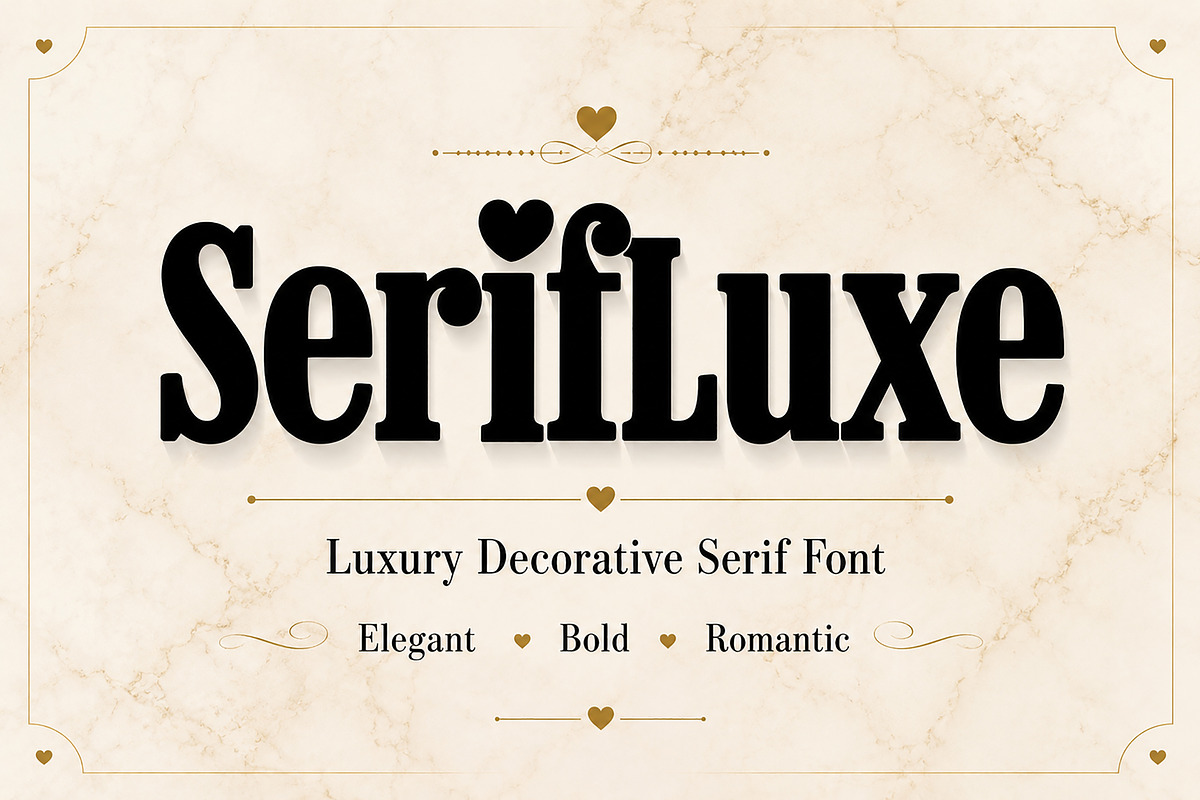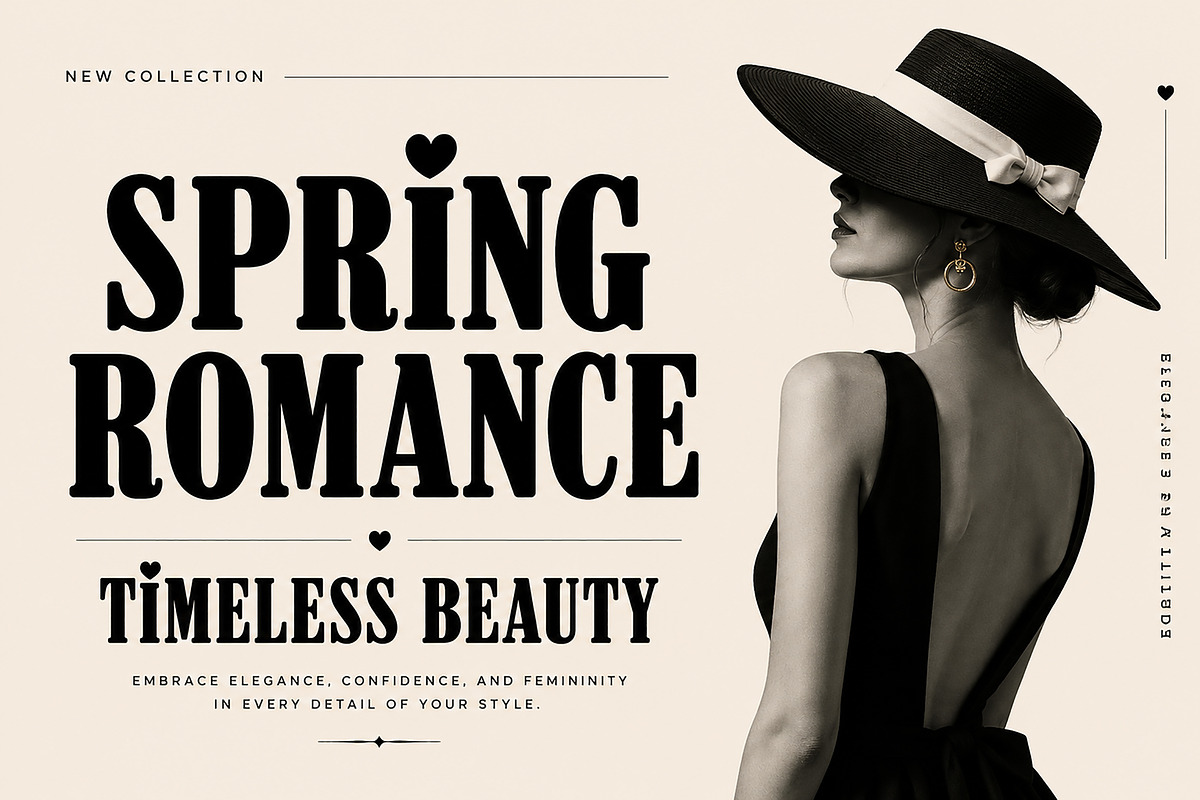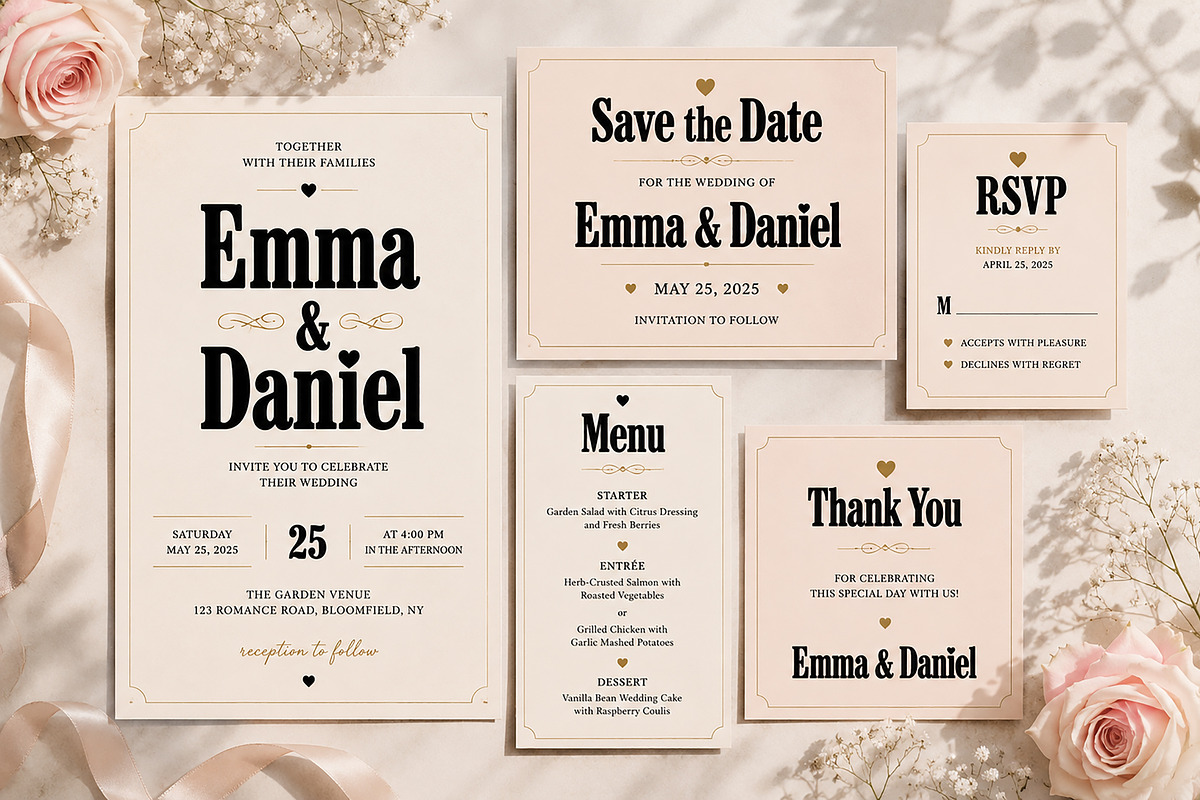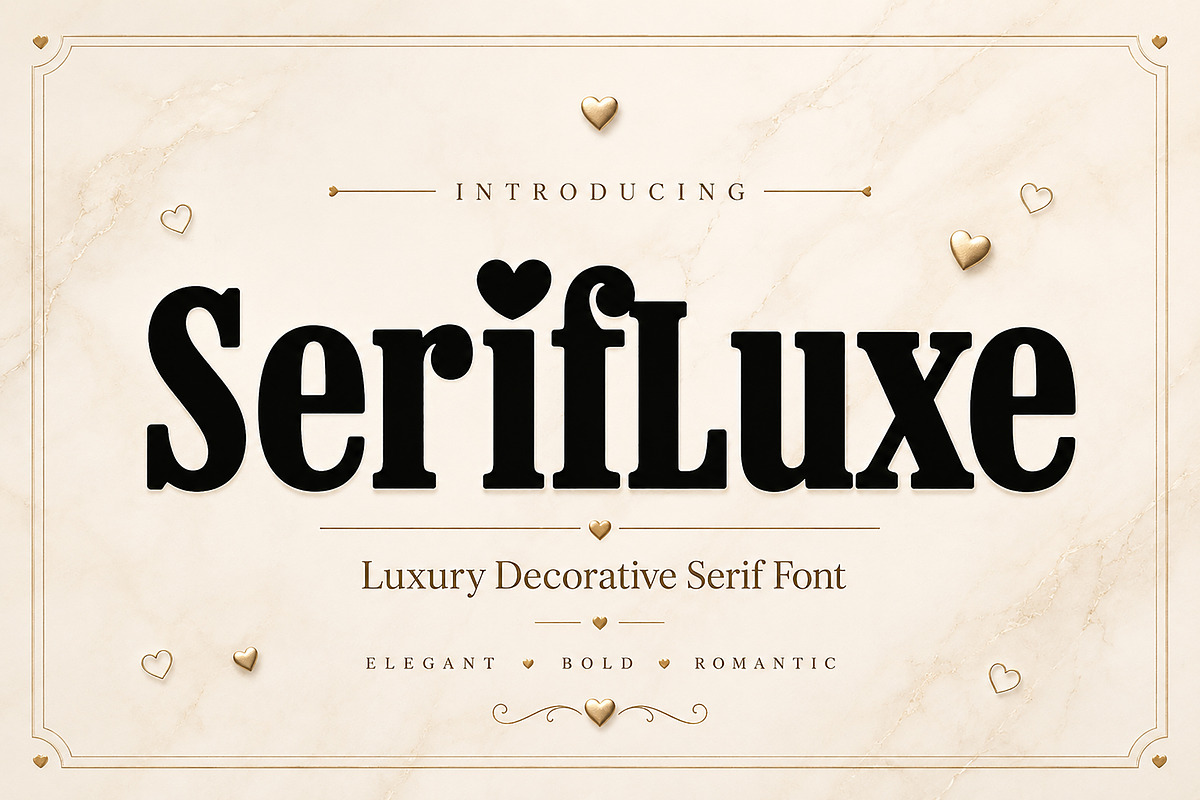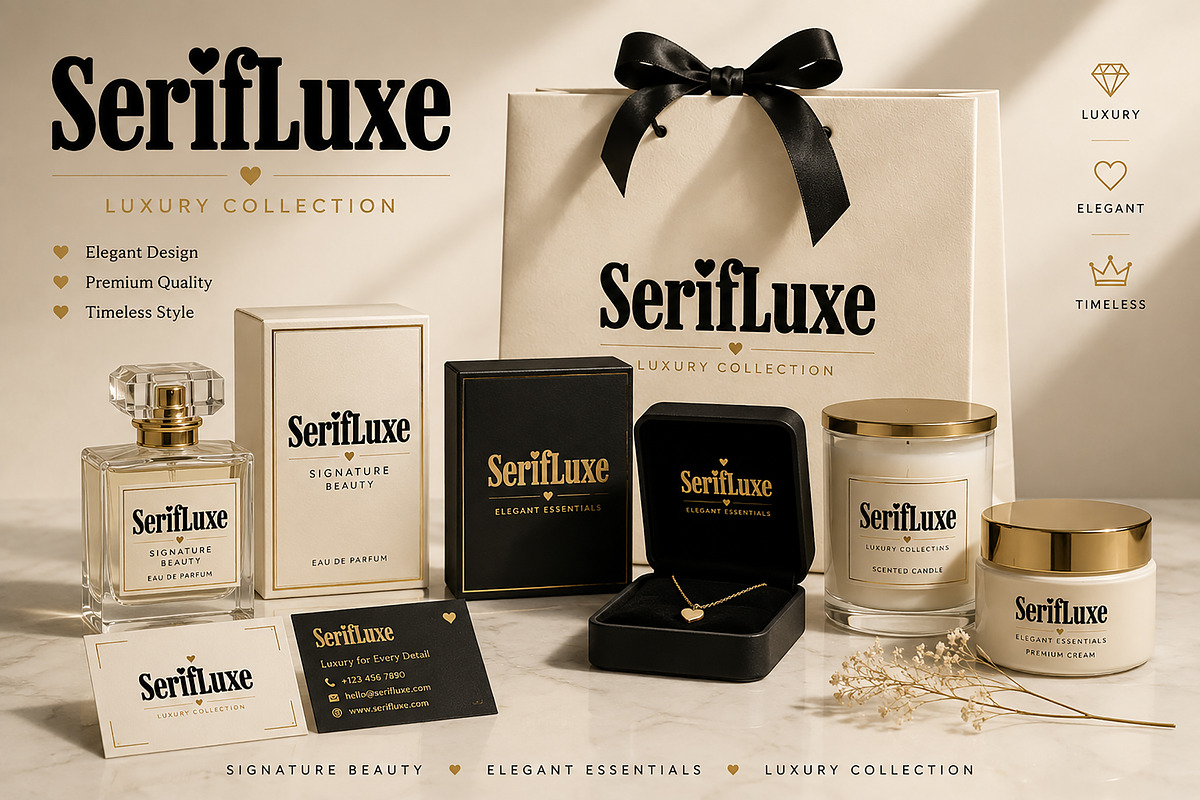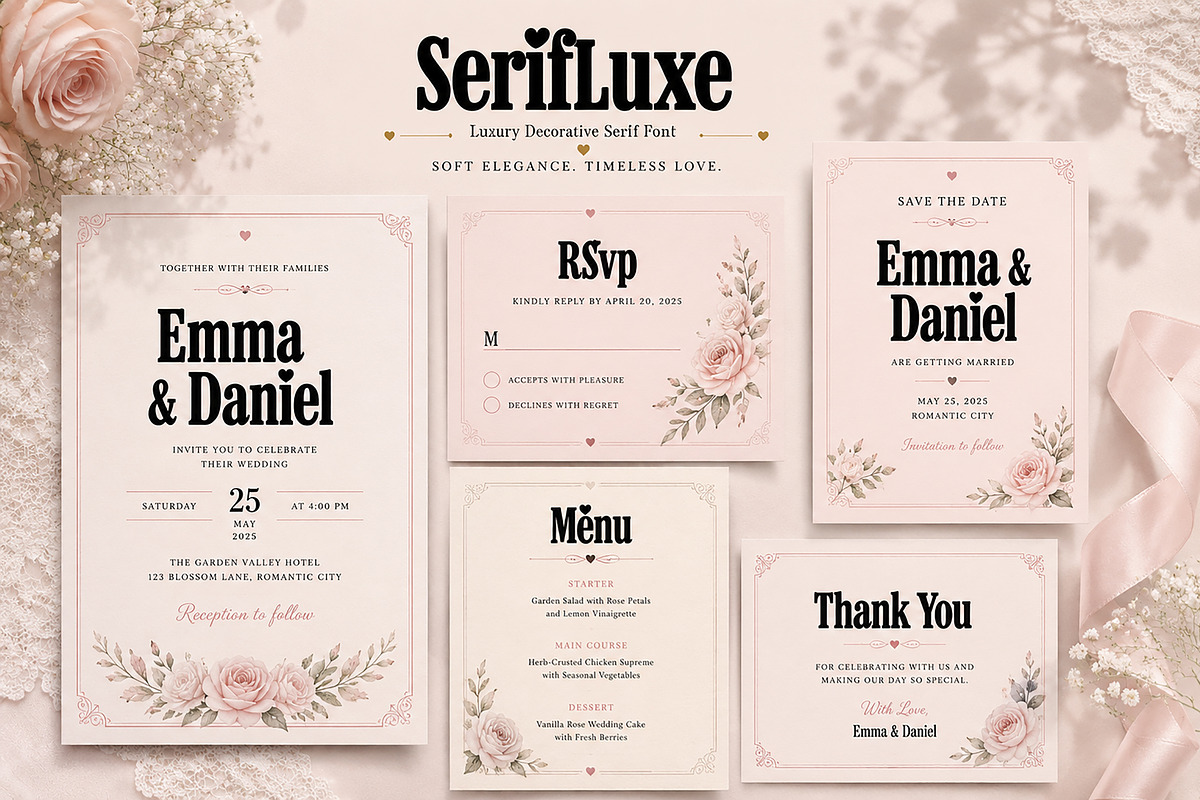
SerifLuxe
SerifLuxe is a luxury decorative serif font crafted to bring elegance, romance, and timeless sophistication into your creative projects. With bold letterforms, soft curves, and charming heart accents, this typeface blends classic serif beauty with a modern romantic touch.
Designed for creators who want their branding to feel premium and unforgettable, SerifLuxe works beautifully for fashion editorials, wedding invitations, beauty packaging, boutique logos, social media graphics, and feminine branding.
Its strong yet graceful personality makes it perfect for both high-end luxury aesthetics and soft romantic designs. Whether you’re creating a chic magazine cover, a luxury perfume label, or a dreamy wedding suite, SerifLuxe delivers style with impact.
Luxury branding
Wedding invitations
Beauty packaging
Fashion editorials
Boutique logos
Social media quotes
Cosmetic labels
Jewelry branding
Feminine product packaging
Romantic stationery
Create stunning designs with SerifLuxe and add a touch of romance, elegance, and luxury to every project.